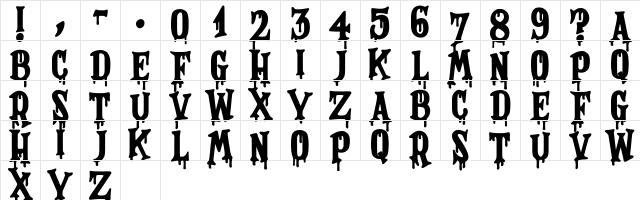
Magnificent Nightmare Regular Free Font
Magnificent Nightmare Regular
Complete Magnificent Nightmare Regular glyph index. Displaying only characters natively supported by Magnificent Nightmare Regular font.
Design Context for Magnificent Nightmare
Magnificent Nightmare is a composed and adaptable typeface that performs quietly and consistently across a wide range of design contexts.
Pro Tip: Use Magnificent Nightmare in both headline and body roles to test its range before committing to a single application.